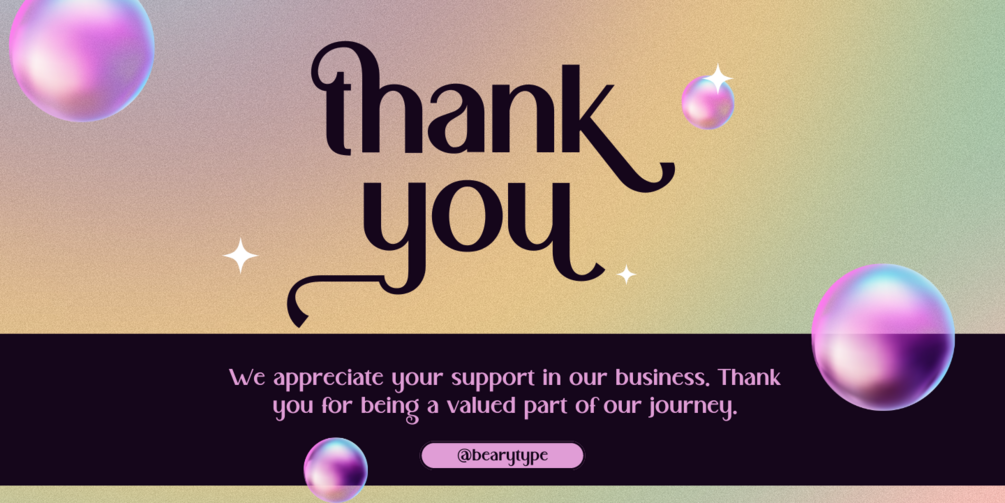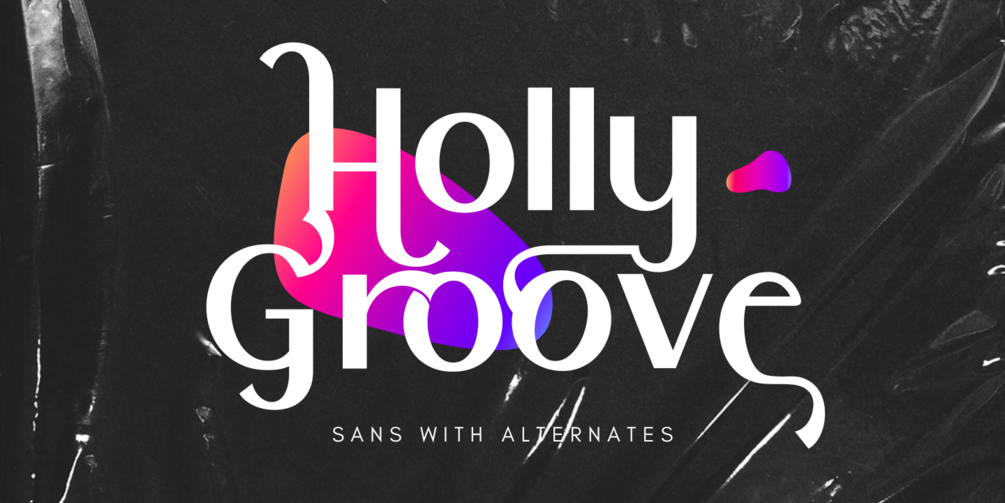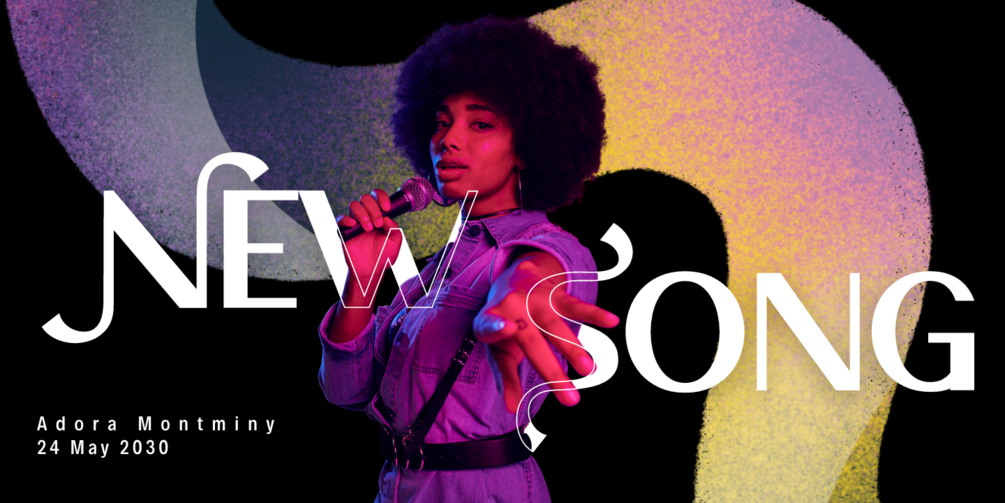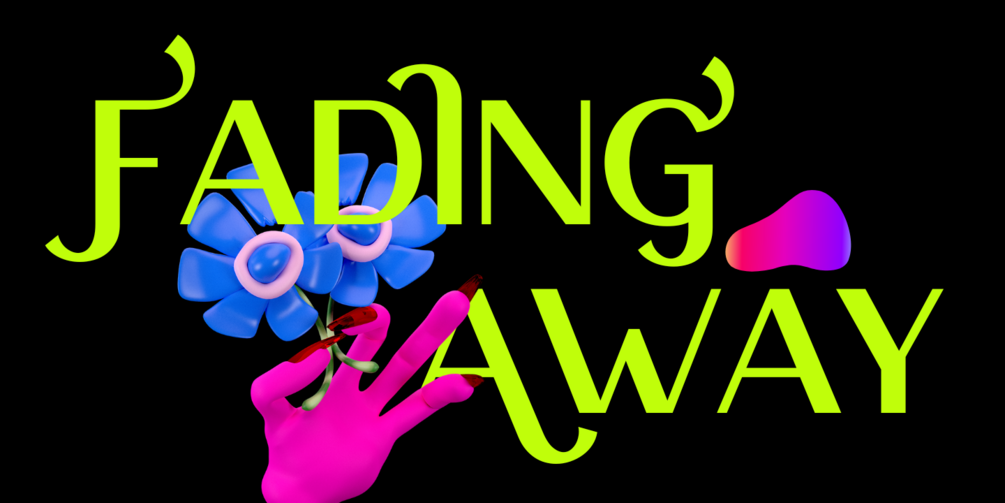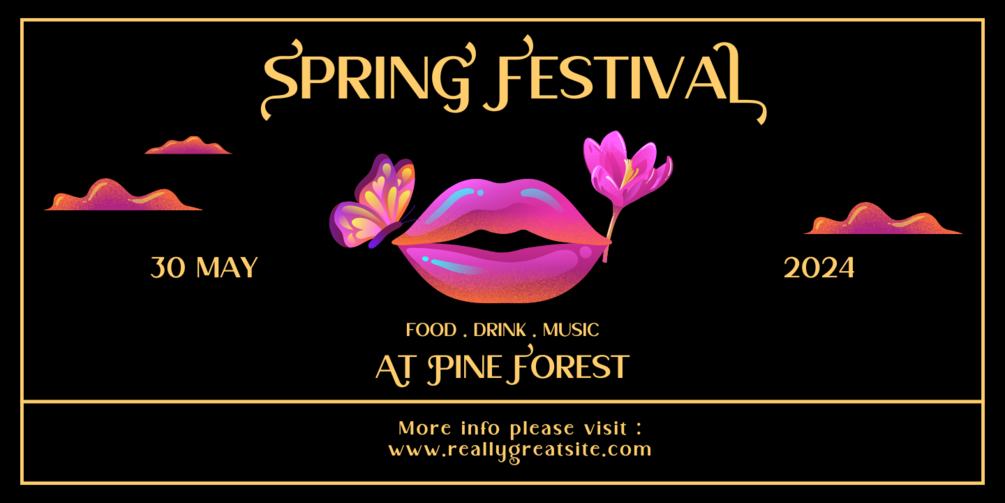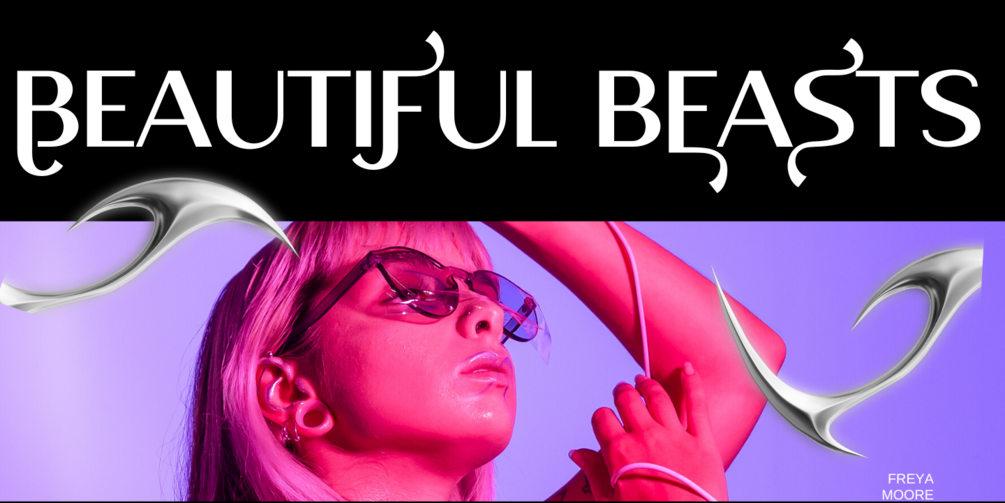
Holly Groove Three
Craving that modern look—without losing the beauty of classic strokes?
Holly Groove Three is the perfect blend of contemporary clarity and graceful swashes.
This sans serif font brings elegance to the forefront with its subtle calligraphic influence and refined swashes—giving your designs a sense of flow, charm, and professional polish. Whether you're designing branding, social media graphics, editorial layouts, or wedding invitations, Holly Groove Three adapts with timeless style.
✨ Clean. Stylish. Flowing.
✨ Includes beautiful swashes for extra flair
✨ Versatile for logos, headlines, and more
Let your words move with grace and impact.